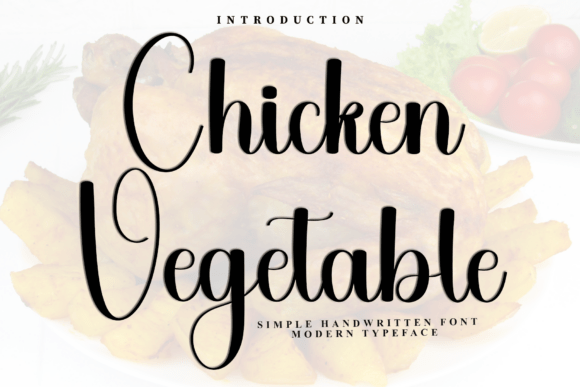
Introducing Chicken Vegetable Font: A Unique and Versatile Typeface
In the world of typography, fonts play a crucial role in conveying messages, expressing emotions, and creating visual identities. Among the numerous fonts available, Chicken Vegetable Font stands out for its distinctive and eye-catching design. This beautiful font is crafted with a soft, unique touch, making it perfect for various creative projects, from design and crafts to artistic expressions.
What Makes Chicken Vegetable Font Special?
Chicken Vegetable Font boasts distinctive strokes that give it a special character, making it both meaningful and versatile for future use. Its unique design ensures that it can be used across different platforms and applications, making it a valuable asset for designers, artists, and crafters.
The font’s versatility lies in its ability to be used in a wide range of products, including:
• Design projects: From brochures and posters to business cards and logos, Chicken Vegetable Font can add a touch of elegance and sophistication.
• Crafts: Whether you’re creating handmade cards, scrapbooking, or engaging in other paper crafts, this font is perfect for adding a personal touch.
• Artistic expressions: For artists, writers, and musicians, Chicken Vegetable Font can be used to create stunning visual displays, album covers, or book titles.
Key Features of Chicken Vegetable Font
Chicken Vegetable Font comes with a range of features that make it an ideal choice for creative projects:
• Variety of characters: The font includes a wide range of characters, ensuring that you can create unique and engaging text.
• Soft and unique touch: The font’s soft, rounded edges give it a friendly and approachable feel.
• Distinctive strokes: The font’s distinctive strokes make it stand out from other typefaces.
• Meaningful and versatile: Chicken Vegetable Font is designed to be both meaningful and versatile, making it perfect for various applications.
Benefits of Using Chicken Vegetable Font
Using Chicken Vegetable Font can bring numerous benefits to your creative projects:
• Enhanced visual appeal: The font’s unique design and soft touch can add a touch of elegance and sophistication to your projects.
• Increased engagement: The font’s distinctive strokes and characters can help grab the audience’s attention and keep them engaged.
• Versatility: Chicken Vegetable Font can be used across different platforms and applications, making it a valuable asset for designers and artists.
• Time-saving: With its wide range of characters and compatibility with various software, Chicken Vegetable Font can save you time and effort in your creative projects.
Tips for Using Chicken Vegetable Font
To get the most out of Chicken Vegetable Font, consider the following tips:
• Experiment with different sizes: The font’s unique design works well in various sizes, from small captions to large headings.
• Pair with other fonts: Chicken Vegetable Font can be paired with other fonts to create a unique and engaging visual display.
• Use in combination with images: The font’s soft touch works well with images, making it perfect for creating stunning visual displays.
Chicken Vegetable Font is a beautiful and eye-catching typeface that can add a touch of elegance and sophistication to your creative projects. Its unique design, soft touch, and distinctive strokes make it perfect for various applications, from design and crafts to artistic expressions. With its compatibility with various software and platforms, Chicken Vegetable Font is an ideal choice for designers, artists, and crafters.